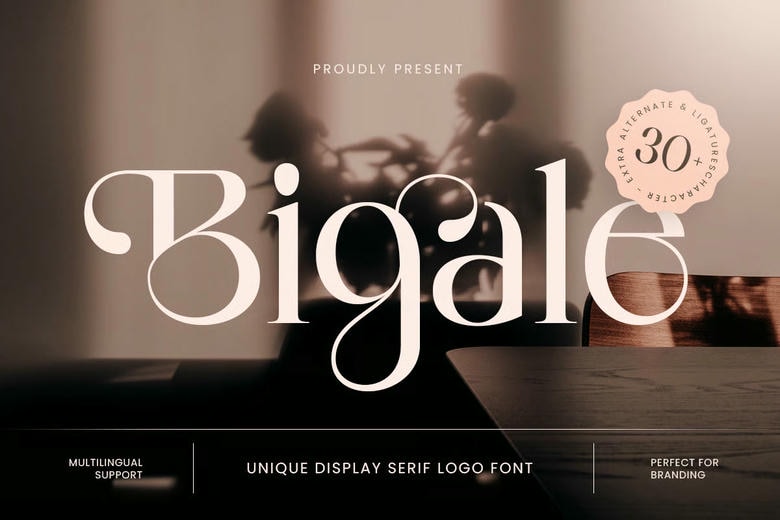
Bigale Font
Bigale is a display serif font that helps brands get noticed and stay memorable. With its elegant serifs, expressive shapes, and polished style, it works well for luxury logos, branding, editorials, and packaging.
Bigale is made for designers who want a font with personality. It blends classic serif style with a modern feel. Its unique shapes give brands a confident, creative, and exclusive look.
Bigale works well for fashion brands, boutique logos, beauty products, magazine titles, invitations, and premium marketing materials. It adds a strong, elegant look to both print and digital projects.
Bigale Unique Serif Font